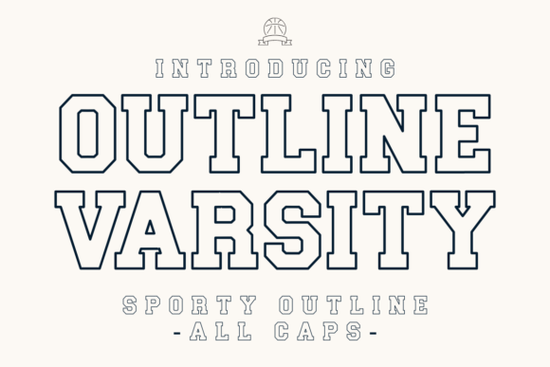
If you need a typeface that instantly communicates team spirit without overwhelming your layout, the Outline Varsity Font delivers exactly that. It works as a reliable display option for athletic branding, school merchandise, and event graphics. The bold, clean strokes hold up well on both fabric and paper, giving you a classic American college look that stays highly legible even when scaled down. Designers, crafters, and print-on-demand sellers frequently use it because the empty space inside the letters adds depth without sacrificing readability.
When should you choose an outlined style for apparel?
Outlined letterforms shine brightest when your design relies on strong contrast and layering. Instead of filling every shape with solid ink, the negative space creates a visual buffer that works beautifully over textured backgrounds, heathered tees, or busy poster layouts. If you run a small business selling tournament merchandise or college-themed branding, this approach lets you keep the typography sharp while the underlying fabric or paper shows through. You can place a thin stroke behind the text or use a subtle drop shadow to separate it from high-contrast backgrounds. The result is a crisp, professional finish that avoids the heavy, ink-heavy look of completely filled display faces.
How does it handle screen printing and vinyl cutting?
Production quality depends heavily on line thickness and spacing. Because the outlined shapes maintain consistent stroke weights, they scale cleanly across different file types and output methods. For direct-to-garment printing, keep the stroke width above one millimeter to prevent the halftone screens from breaking up fine lines. Vinyl cutters handle these paths smoothly when you vectorize the letters and avoid overly small point sizes. Always preview your layout at a one-to-one scale before committing to a full print run. If the interior cutouts feel too tight on your chosen material, slightly expanding the tracking will prevent accidental bridging during weeding or pressing.
What other typefaces pair well with heavy sports lettering?
Quick checklist before you send your design to press
- Convert all text to outlines or paths to prevent substitution errors on the printer’s end.
- Test stroke thickness on your actual mockup material to ensure lines won’t bleed during curing.
- Keep tracking tight but not cramped, so the interior cutouts remain visible at smaller sizes.
- Save a high-resolution PNG alongside your vector file for quick digital previews or social posts.
- Print a single sample first, then check how the negative space reads under store lighting.
Before finalizing your artwork, zoom out to fifty percent and view the file in grayscale. If the outlined letters still read clearly without color reliance, your layout will hold up across different merchandise and marketing channels. Adjust spacing, run one physical proof, and then proceed confidently to your full order.